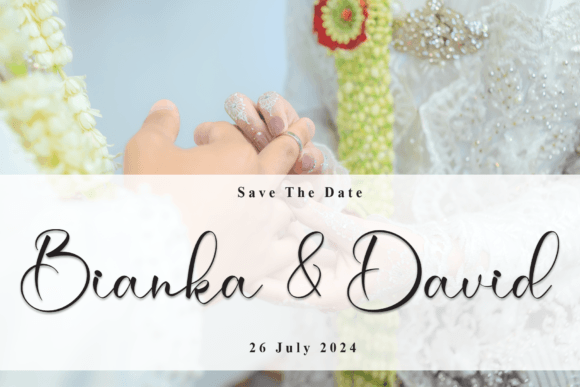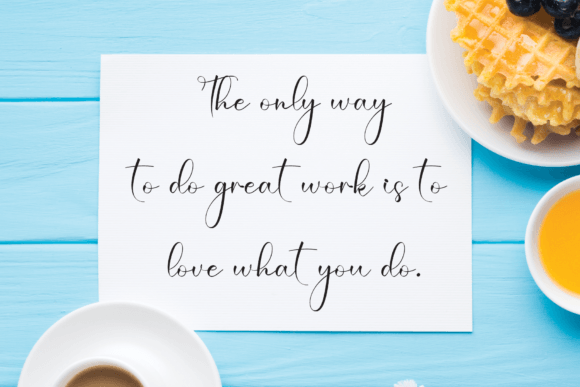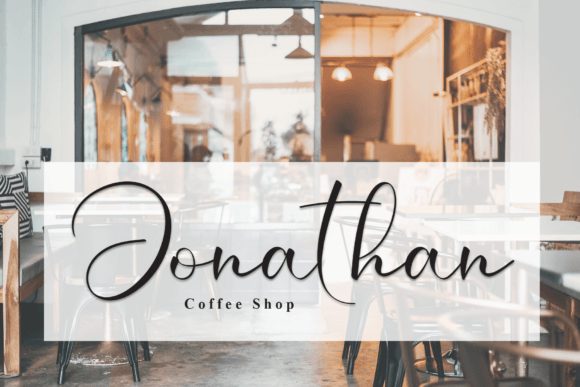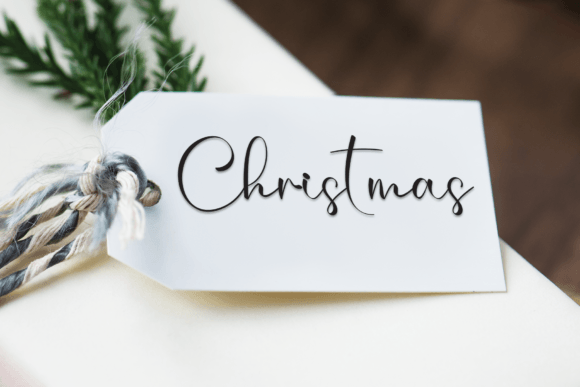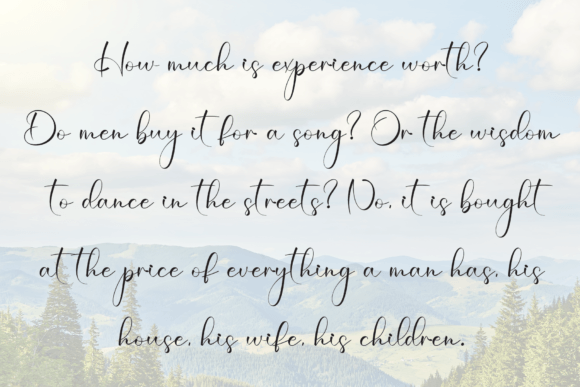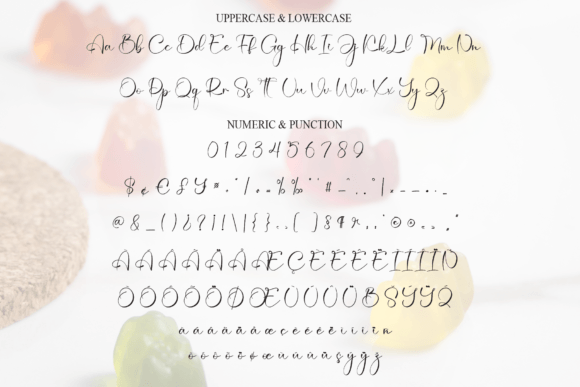
The Sweet Touch of Cristal Candy Font
As a designer, there’s nothing quite like the thrill of bringing a project to life. The blank page stares back at you, waiting for your creative spark to ignite. It’s in these moments that you’re reminded of the power of typography to evoke emotions and set the tone for your message. For me, it’s the search for the perfect font that can add that extra something special – a dash of elegance, a pinch of whimsy, or a whole lot of personality.
Enter Cristal Candy Font, a stylish handwritten script font that exudes charm and sophistication. With its flowing curves and delicate strokes, it’s the perfect addition to any design project. Whether you’re crafting an invitation, logo, or branding materials, Cristal Candy Font adds a personal and refined touch that’s sure to impress. As a designer, you know the value of finding the right font to elevate your work – and with Cristal Candy Font, you’ll find it’s a game-changer.
Cristal Candy Font Key Features
- Font Family: Cristal Candy, a unique and elegant script font.
- Unique Characteristics: Features intricate, hand-drawn lettering with a touch of whimsy and romance.
Cristal Candy Font Review
Overall, I’m torn about this font. It has some great qualities, but it also has some serious limitations. Let’s start with what works well: ✨ The font is super playful and fun, perfect for a candy-themed logo or packaging. The script-like letters are very expressive and add a whimsical touch. ✨ The font is also quite legible, even at smaller sizes, which is a must for any commercial use.
- ✨ The font’s rounded edges and curves make it very approachable and friendly.
- ✨ The font is highly customizable, with a wide range of styles and weights available.
Now, let’s talk about the limitations: ⚠️ The font’s playfulness can also make it feel overly childish or immature, depending on the context. ⚠️ The font’s script-like letters can be difficult to read at very small sizes, which may be a problem for some applications.
In terms of overall impression, I’d say that Cristal Candy Font is a great choice for projects that need a lighthearted, playful feel. However, it may not be the best fit for more serious or professional applications. With some careful consideration and use, this font can add a lot of personality to your design. But be aware of its limitations and use it wisely.
Cristal Candy Font: A Practical Application Guide
Tip: Use the Cristal Candy Font for titles, headings, and emphasis to add a touch of elegance to your designs.
Tip: Use the Cristal Candy Font for custom typography and graphic design elements to add a unique touch to your work.
Tip: Use the Cristal Candy Font for titles, headings, and emphasis to add a touch of sophistication to your presentations and documents.
The Cristal Candy Font is perfect for:
- Birthday party invitations and decorations
- Graphic design and typography projects
Alternatives to Cristal Candy Font
Great Vibes is a modern, cursive font that is perfect for adding a touch of elegance and sophistication to designs. It’s ideal for use in titles, headings, and quotes. Great Vibes has a more refined and polished look compared to Cristal Candy Font, which makes it suitable for more formal designs.
Comparison: While Cristal Candy Font has a playful, whimsical feel, Great Vibes is more refined and sophisticated. Great Vibes is a better choice when you want to convey a sense of luxury and elegance.
Dancing Script is a beautiful, elegant script font that is perfect for adding a touch of romance and sophistication to designs. It’s ideal for use in titles, headings, and quotes. Dancing Script has a more fluid and dynamic look compared to Cristal Candy Font, which makes it suitable for designs that require a sense of movement and energy.
Comparison: While Cristal Candy Font has a more playful and whimsical feel, Dancing Script is more elegant and sophisticated. Dancing Script is a better choice when you want to convey a sense of luxury and high-end quality.